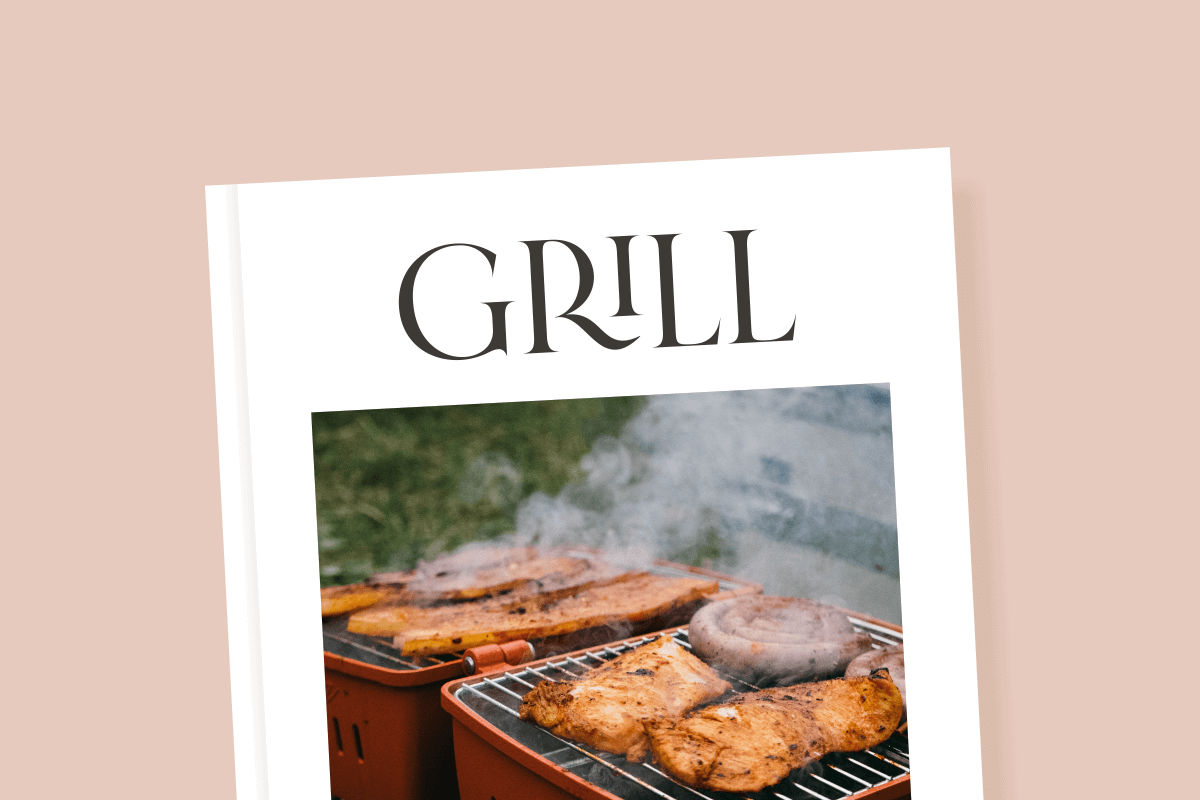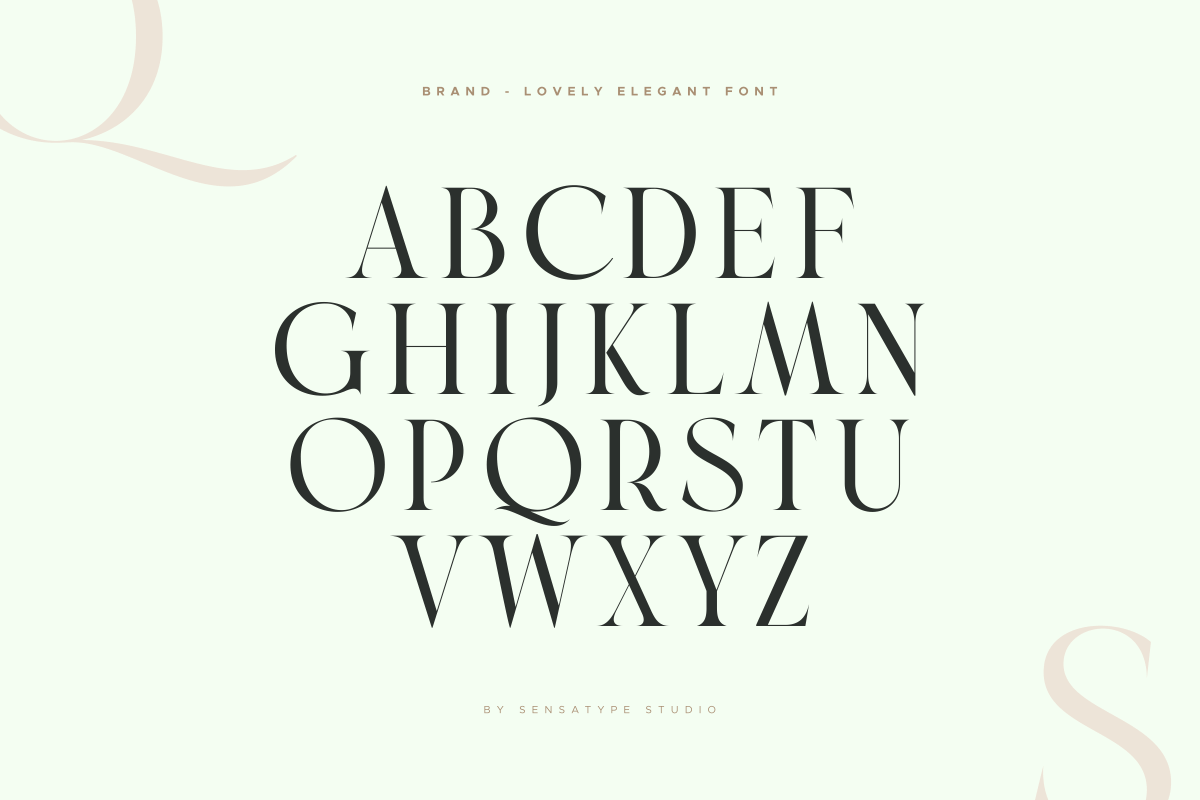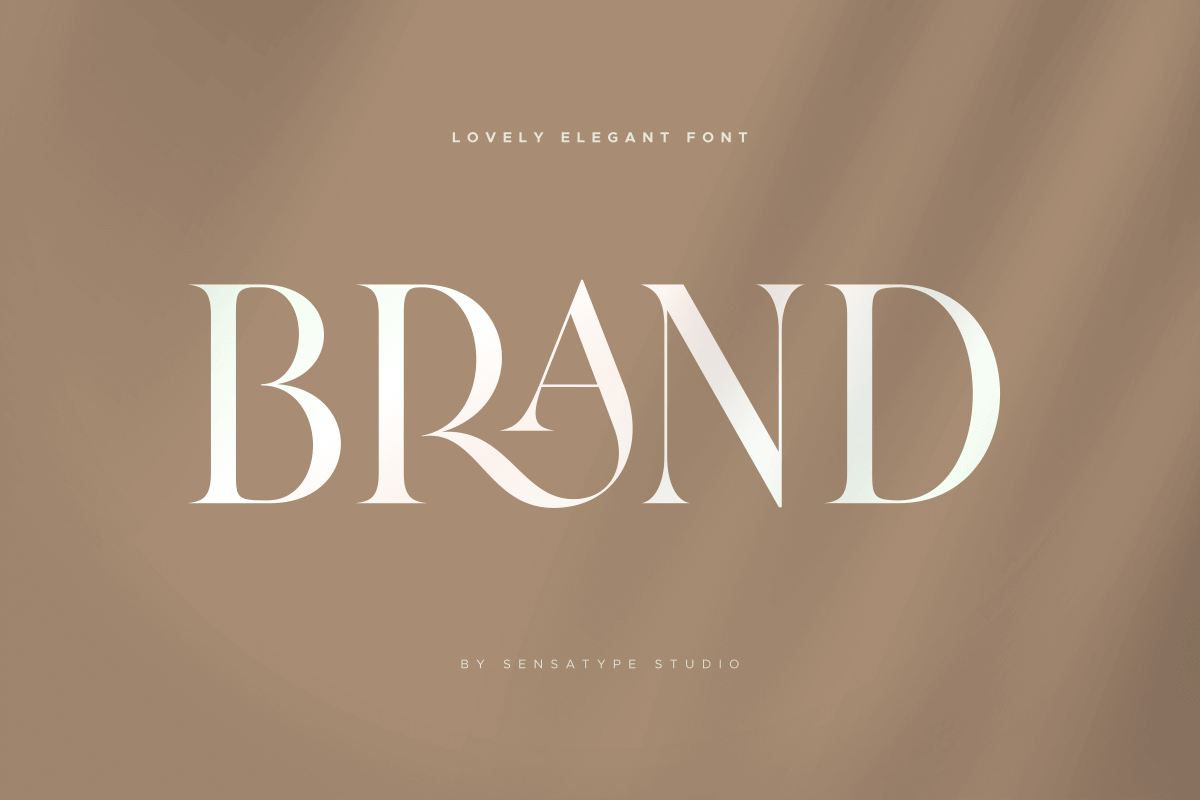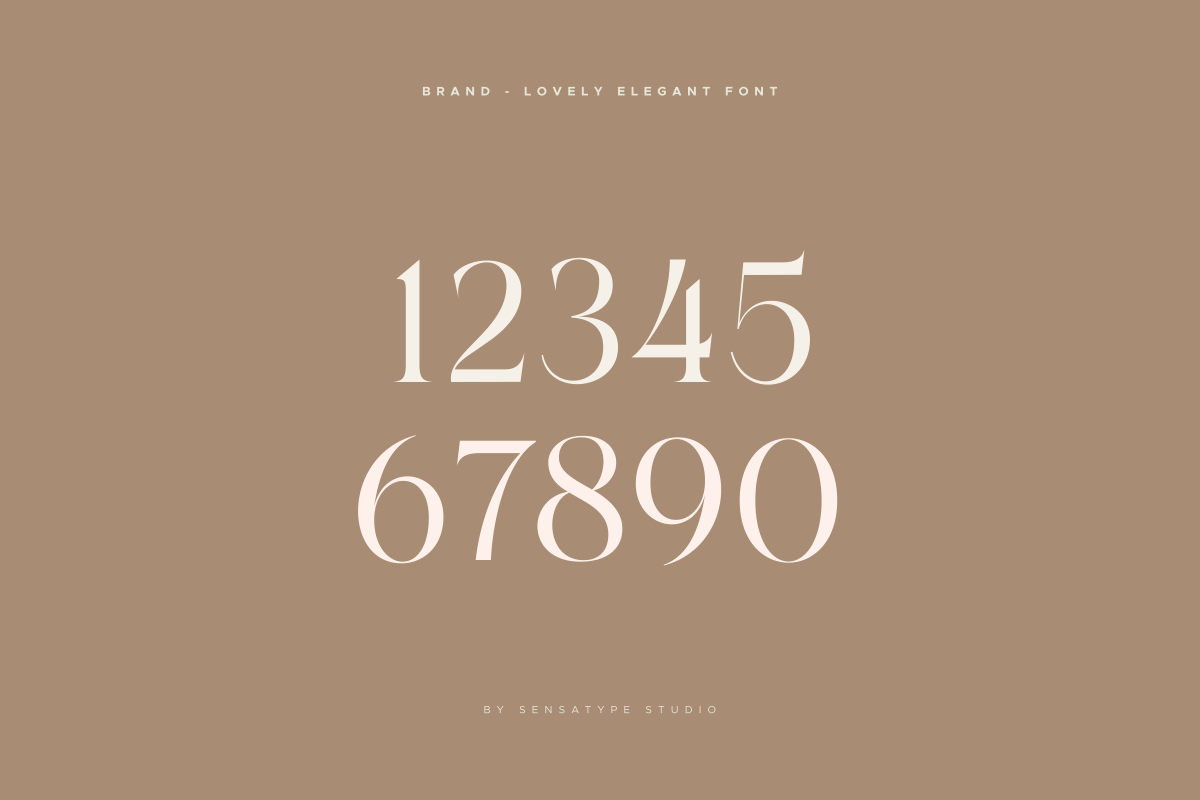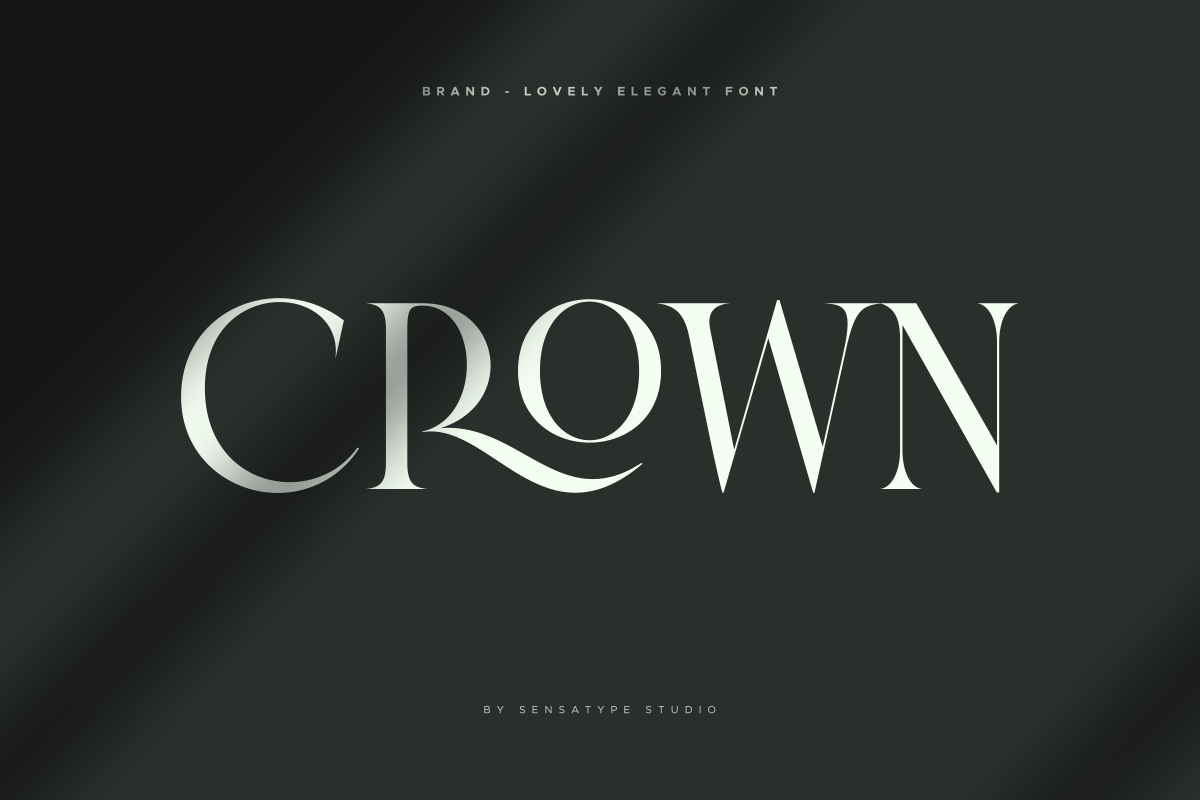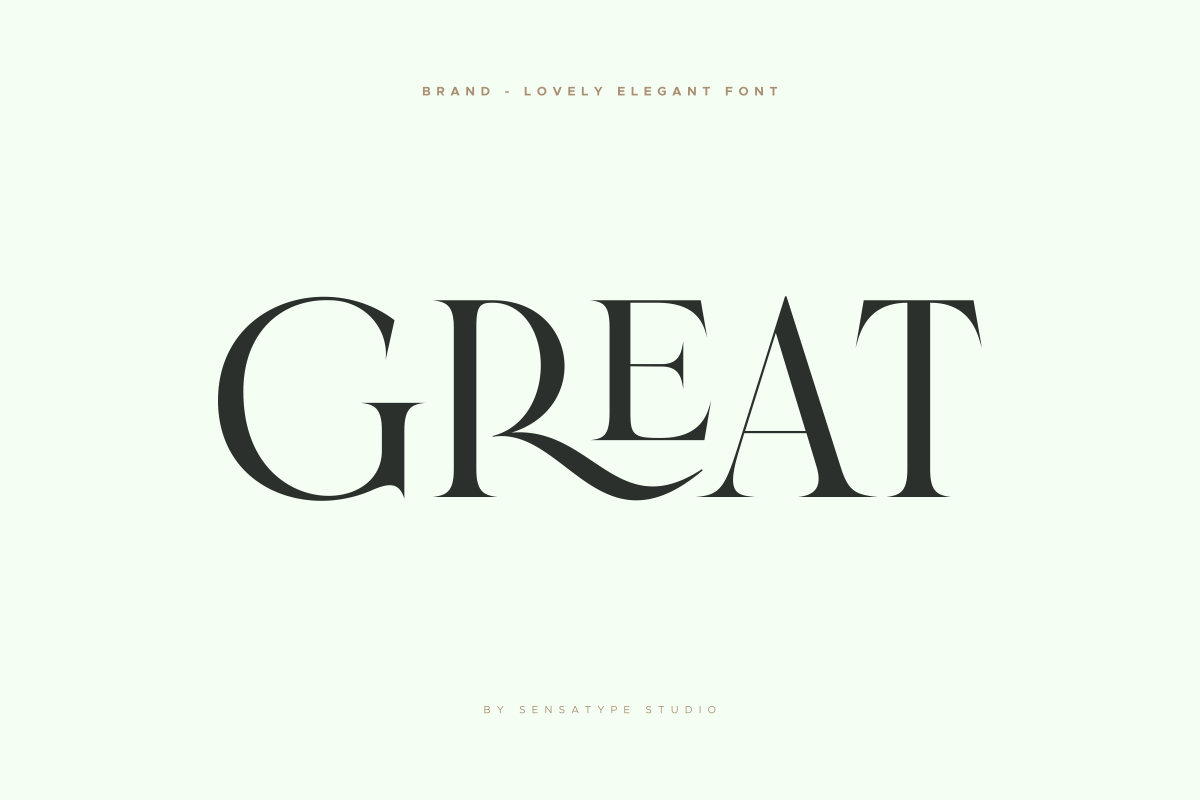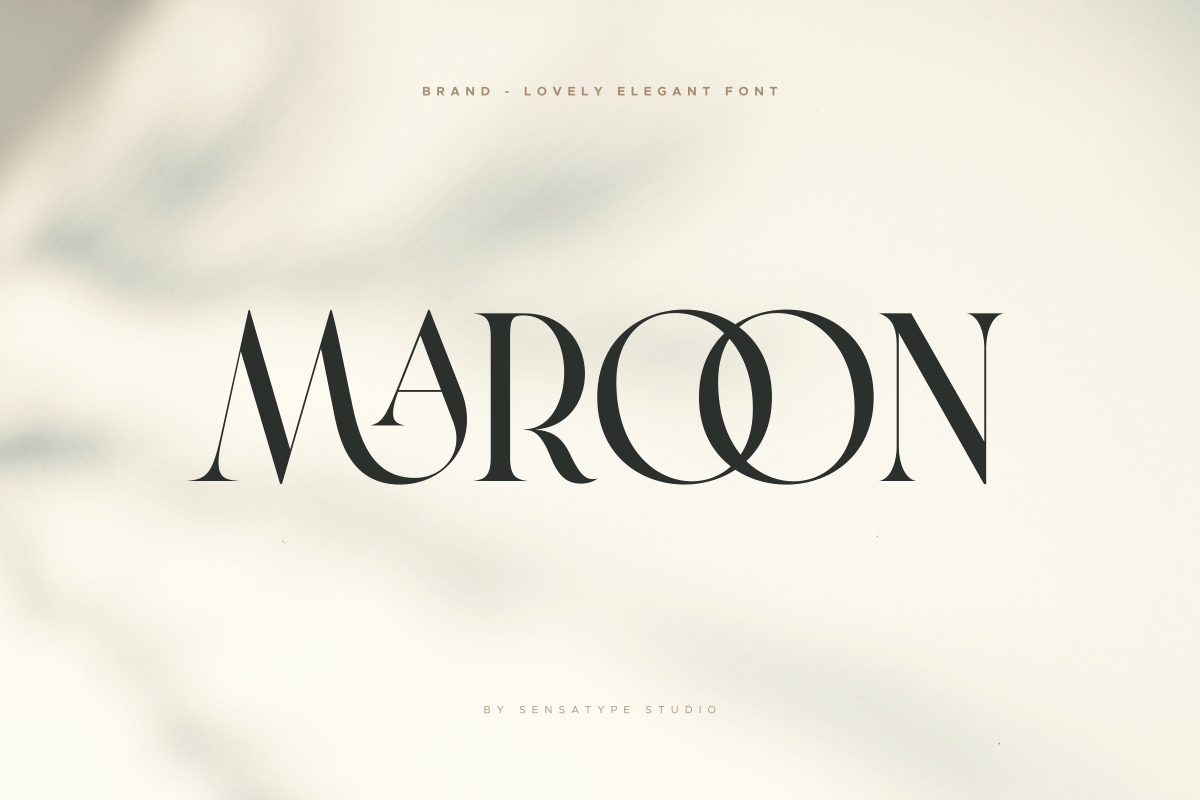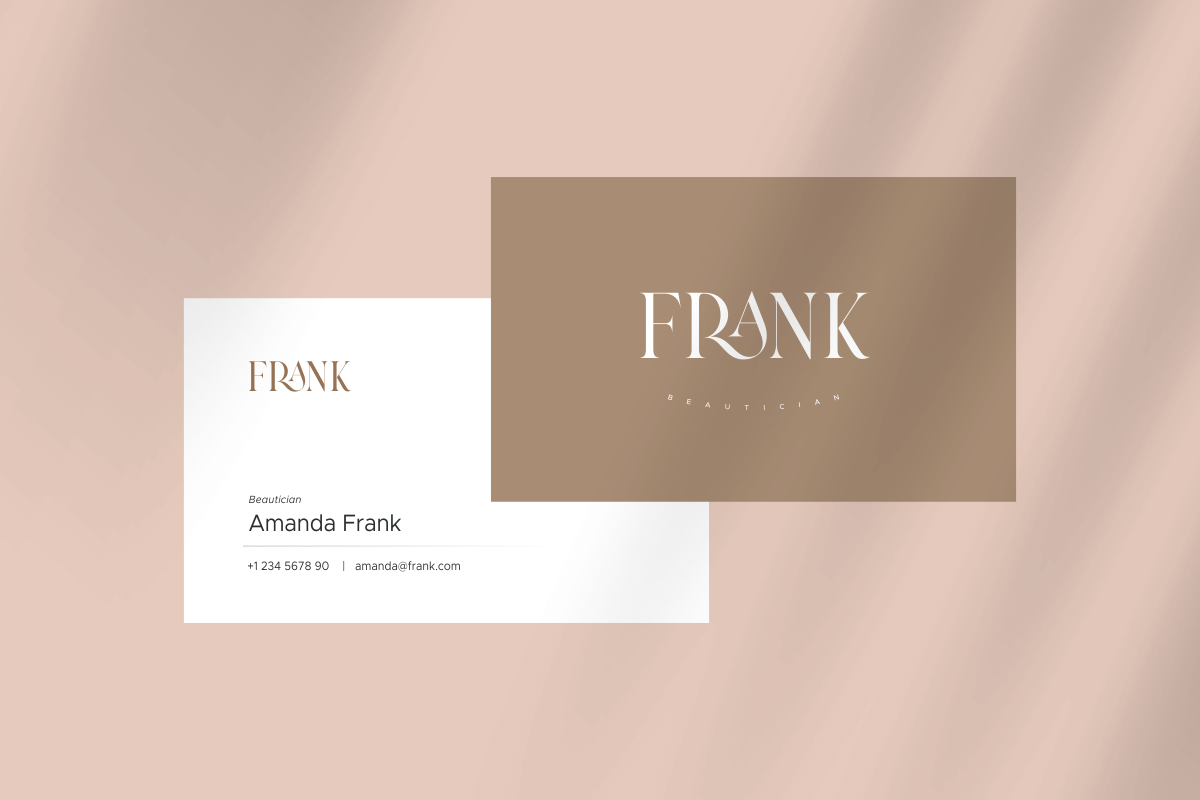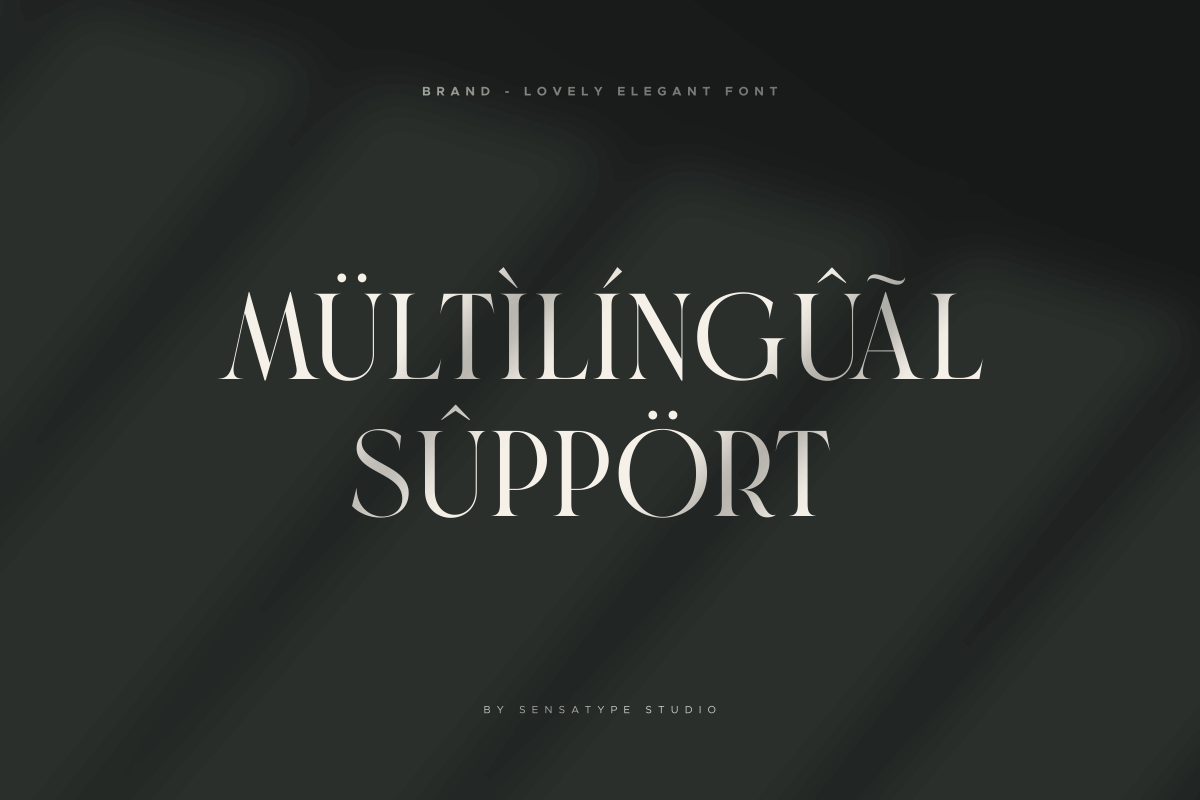
Brand - Lovely Elegant Font
Brand is a lovely elegant font for branding and logo design.
Based on our experience as a graphic designer who works for a lot of companies, we often are requested to design a logo in a unique style but with an elegant shape. So, we try to brainstorming and create this font to make the idea is going out. This is perfect for BRANDING and LOGO DESIGN. You will get classy, elegant, and certainly unique logos with this font.
Brand is also included full set of:
- All uppercase letters
- multilingual characters
- numerals
- punctuation
- ligatures collection
*) ALL LIGATURE CHARACTERS CAN BE ACCESS USING LOWERCASE TYPE (for example: r+a)